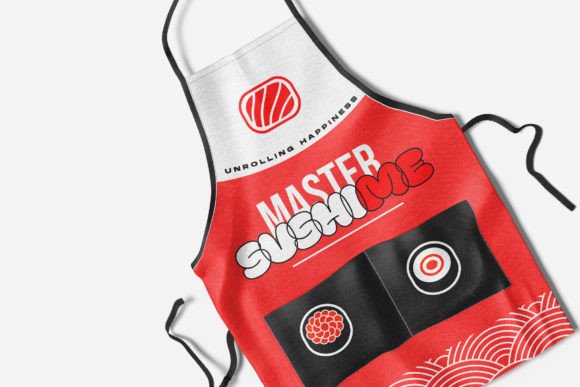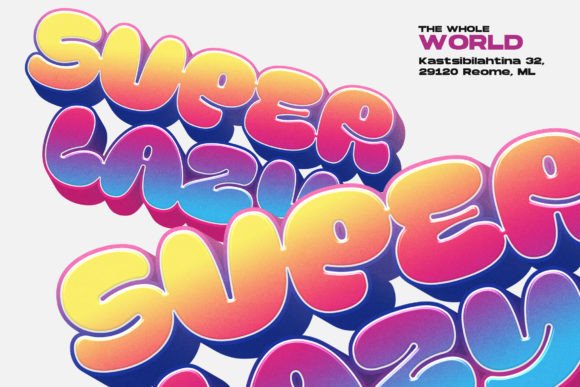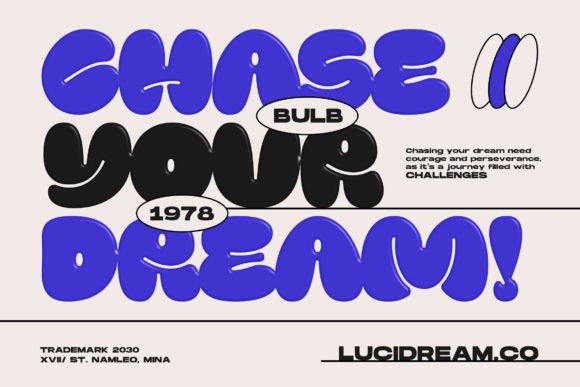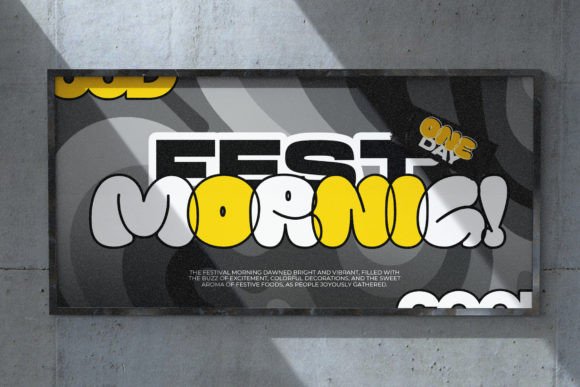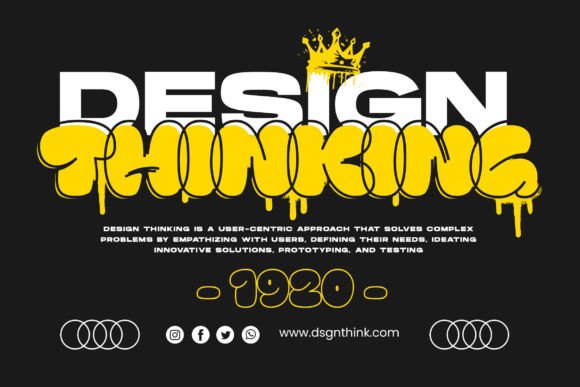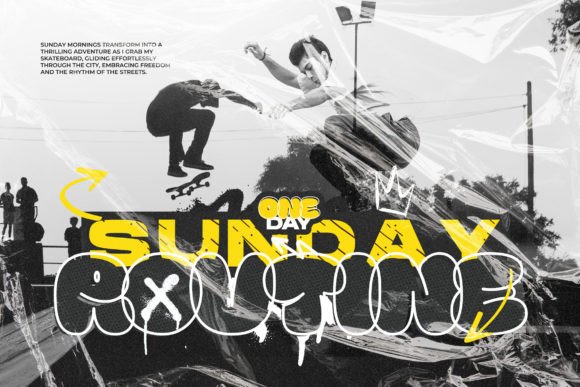
Introduction to Milyear Solid Font Font
Fonts play a crucial role in design, and the Milyear Solid Font font is a typeface that brings both character and versatility to any project. Whether you’re working on a branding project, a website, or a print design, the Milyear Solid Font font offers a unique style that can elevate your work.
Milyear Solid – Playful Balloon Graffiti Font – Urban Street Vibes – Unique Branding and Fun Design.
Milyear Solid is a unique ballon graffiti font that effortlessly combines the graffiti with the playful and dynamic elements of balloon design The outline style adds a touch of modernity, while the solid version provides a bold and impactful appearance.
Key Features of Milyear Solid Font Font
Why Choose Milyear Solid Font Font?
The Milyear Solid Font font is more than just a typeface – it’s a design tool that helps you communicate your message with style and clarity. Its unique character set and versatile design make it suitable for a wide range of applications, from elegant invitations to bold headlines.
With its carefully crafted letterforms and balanced proportions, the Milyear Solid Font font ensures readability and visual appeal across all mediums.
What makes Milyear Solid Font font special?
The Milyear Solid Font font stands out with its unique design, exceptional readability, and versatility across various design applications.